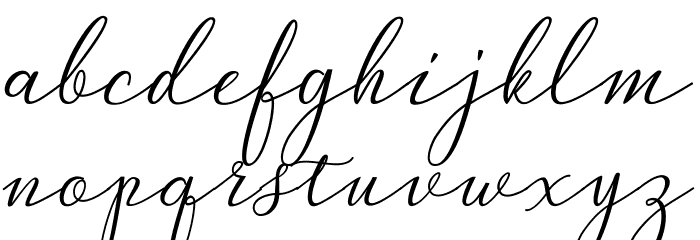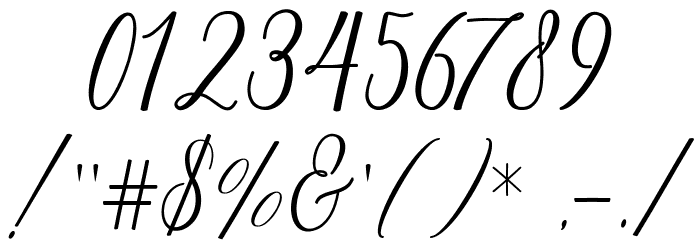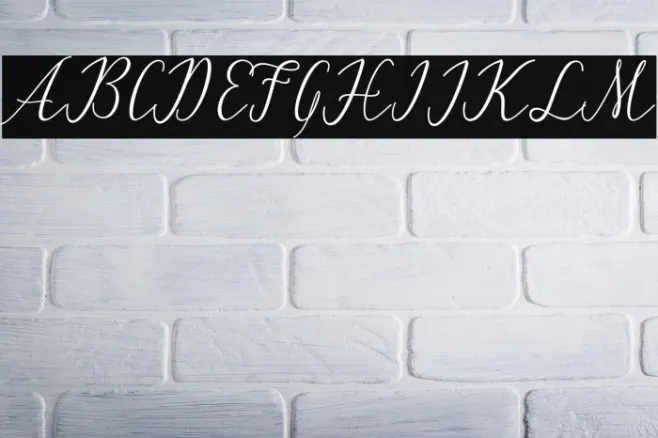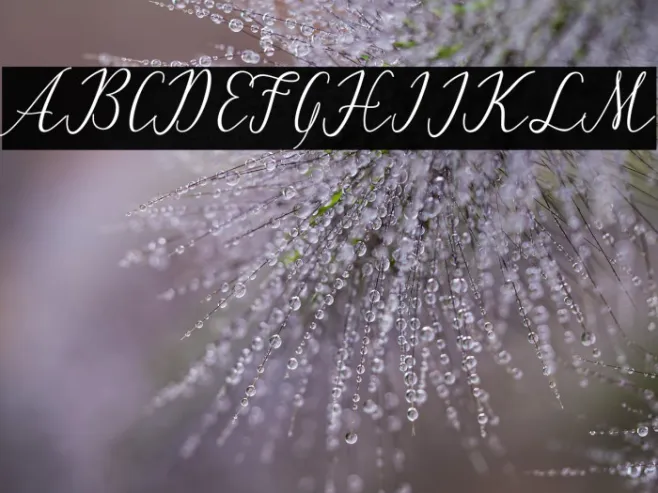
Peach Font
This elegant script font features a flowing, cursive style with smooth, connected strokes that mimic the fluidity of handwriting. The uppercase letters are tall and graceful, with sweeping curves and delicate loops, while the lowercase letters maintain a consistent flow with subtle variations in stroke width. The numerals are stylish and slightly elongated, complementing the overall aesthetic. Special characters are thoughtfully designed to match the script's elegance, making this font suitable for a variety of creative applications. Its refined appearance is ideal for projects that require a touch of sophistication and charm.
A graceful script font with flowing, cursive strokes and elegant character design.
- Font: Peach
- Proposed Projects: Ideal for wedding invitations, elegant branding, personal stationery, and artistic projects.
- Category: Script
- Overall Style: Elegant, Sophisticated
- Use Case: Logos, Invitations, Artistic projects